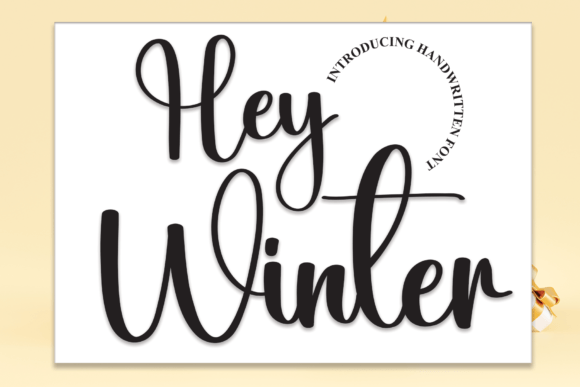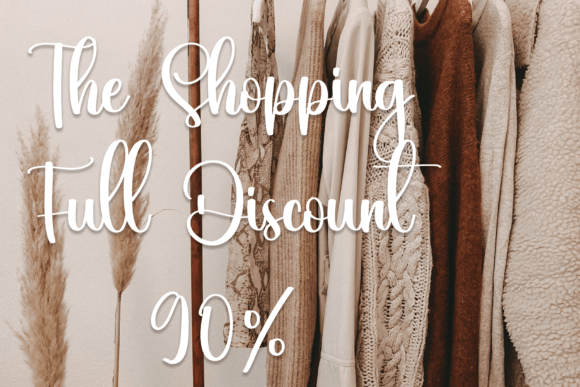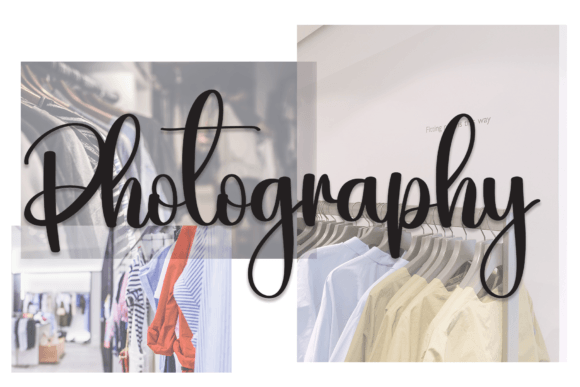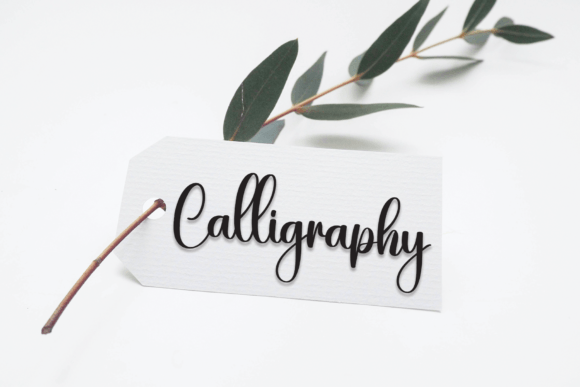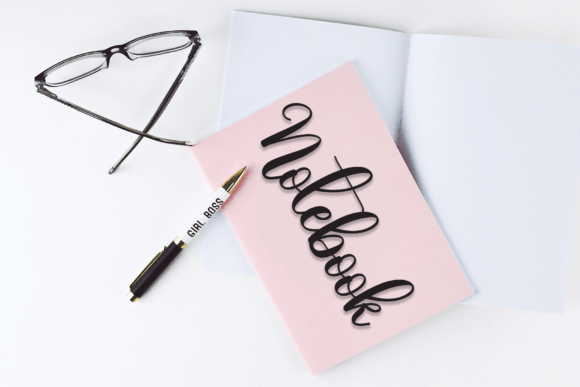
About Hey Winter Font
Hey Winter is an exquisite handwritten font, masterfully designed to become a true favorite. It maintains its classy calligraphic influences while feeling contemporary and fresh. Fall in love with it and bring your projects to the highest levels!